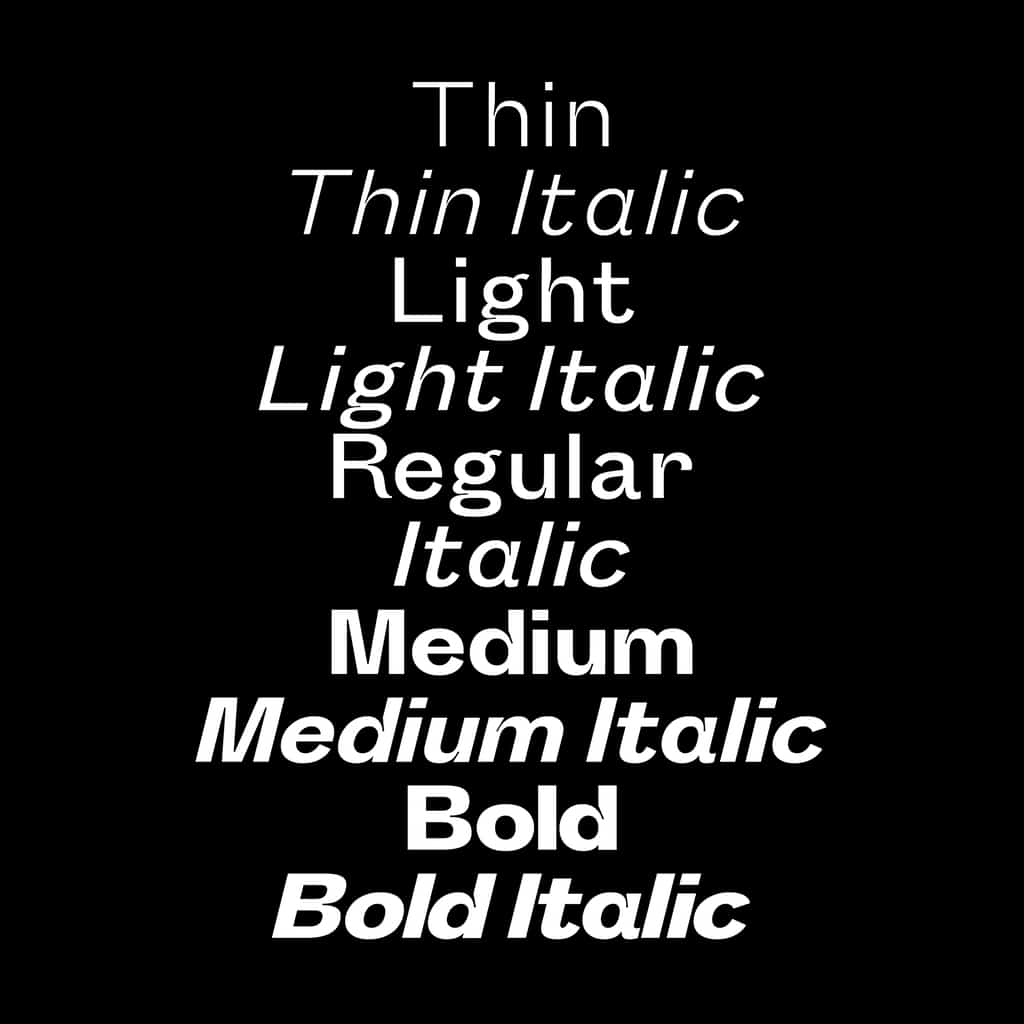
Melange
Daniel Stuhlpfarrer
Melange is a versatile sans-serif typeface meticulously crafted to excel in both small and display sizes. Inspired by the Viennese coffee culture where espresso meets sweet milk foam, its name reflects its dual purpose: exceptional readability through strategic ink traps and striking aesthetics that shine in larger applications.
Designed with 9 weights and corresponding italics—Thin, ExtraLight, Light, Regular, Medium, SemiBold, Bold, ExtraBold, and Black—Melange offers a comprehensive range to suit diverse typographic needs. The edgy design of the ink traps enhances legibility at smaller sizes while adding visual interest and uniqueness at larger scales.
- Uppercase & lowercase
- Numbers
- Subscript & superscript
- Old-style figures
- Diacritics (standard accented and extended)
- Standard & optional ligatures
- Fractions, symbols, punctuation & mathematical symbols